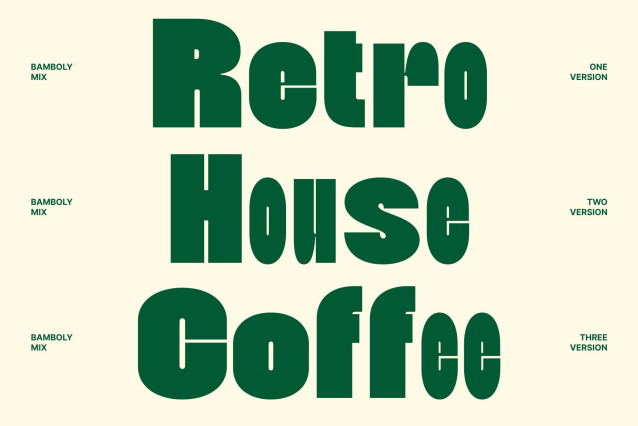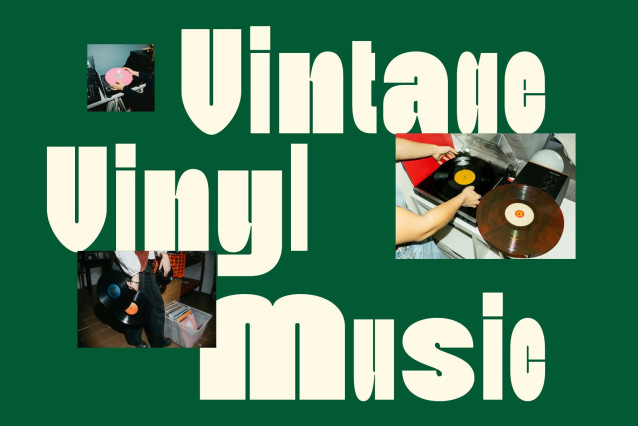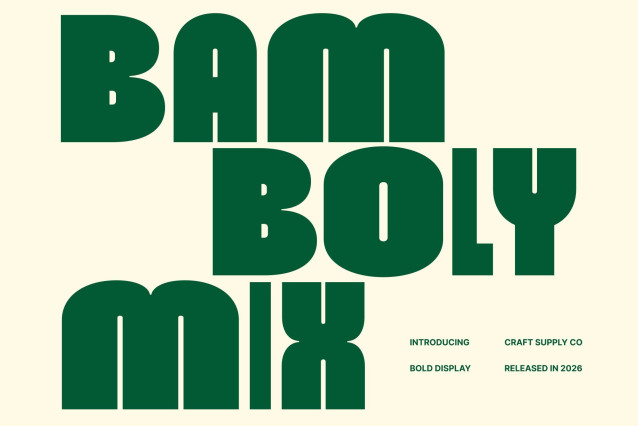
Bamboly Mix Font
Bamboly Mix – Bold Sans Serif: Power, Precision, and Contemporary Style
Bold Sans Serif with Mixed Weight Personality
This is a bold sans serif font crafted to deliver strength, clarity, and a modern professional presence. Designed to command attention, this typeface combines a powerful bold structure with a distinctive mixed-weight concept that adds visual energy to every composition. It brings a confident tone to typography while keeping layouts clean, balanced, and contemporary.
A Unique Blend of Regular and Bold Letterforms
The defining feature of this font lies in its creative fusion of regular and bold characters. This intentional mix introduces contrast and rhythm, allowing text to feel more dynamic and expressive. The interplay between strong and balanced strokes gives the font a fresh contemporary look that stands out in modern design.